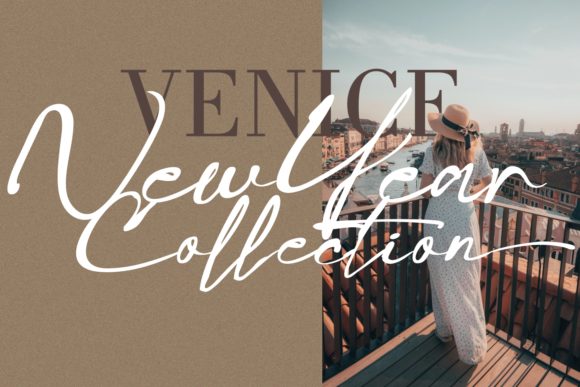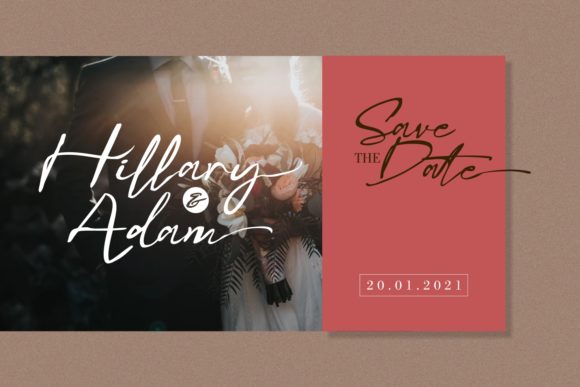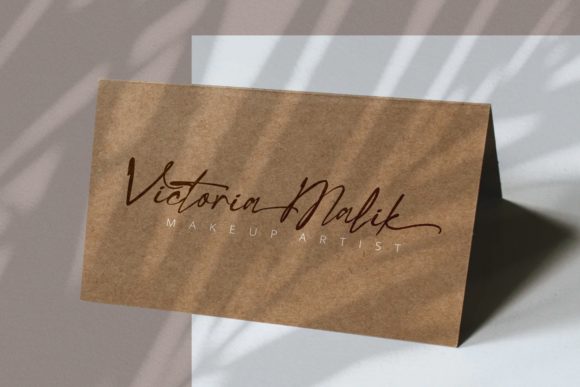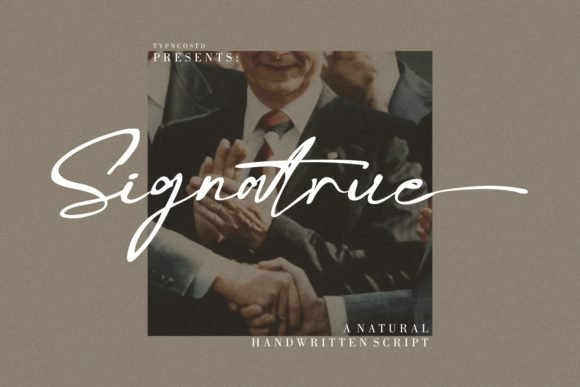
Introduction to Signatrue Font
Signatrue is an outstanding and incredibly stylish handwritten font.
It looks beautiful on a variety of designs requiring a personalized style, such as wedding invitations, thank you cards, weddings, greeting cards, logos and so on .
Key Features of Signatrue Font